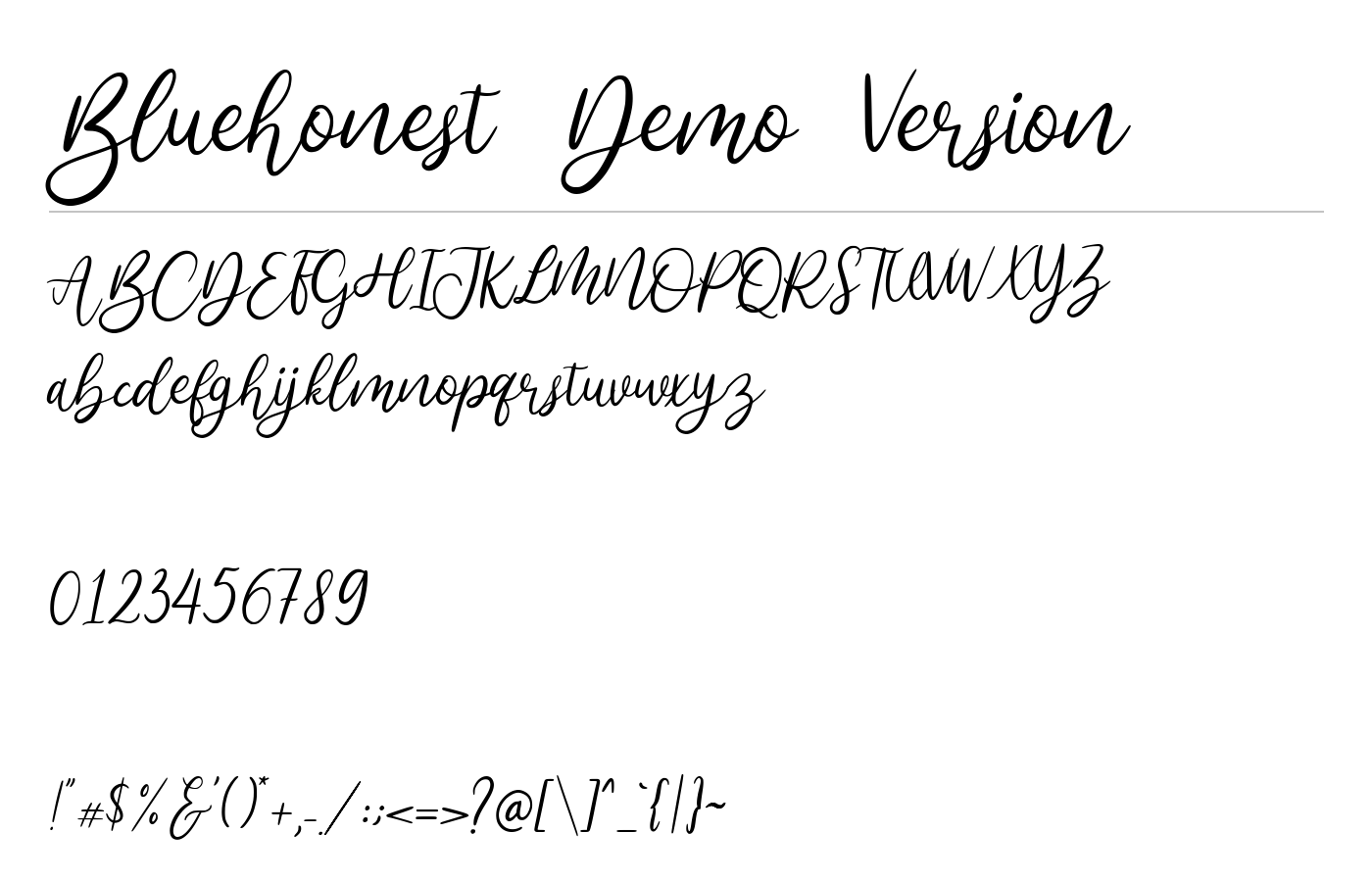
Bluehonest Demo Version is a graceful handwritten script font with delicate, flowing strokes that give it an elegant and personal feel. Its slender weight and smooth, slightly varied lines make it ideal for stylish branding, invitations, and creative projects that require a touch of sophistication and warmth. This font works best in display settings where its charming, cursive letterforms can shine and add a refined, approachable character.
Bluehonest Demo Version Font
About Bluehonest Demo Version Font